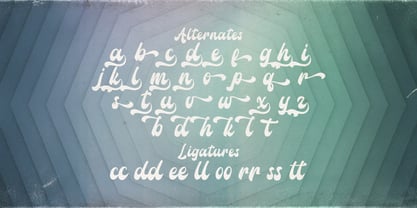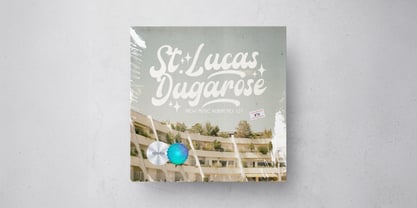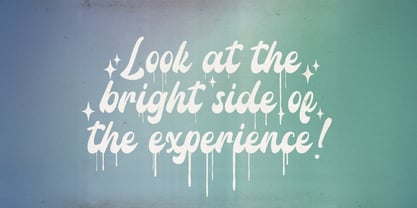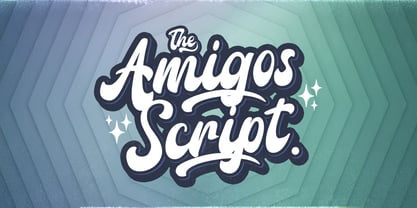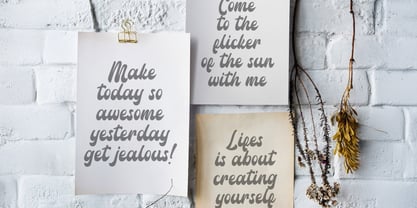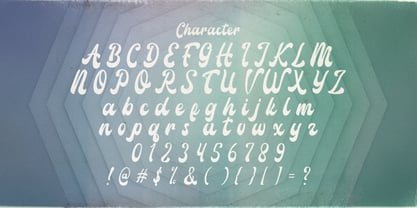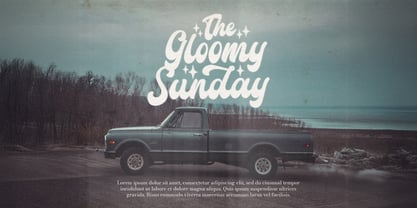
Amigos Script
by Stringlabs Creative Studio
The Amigos Script Font Family was designed by Virgiawan Listanto and published by Stringlabs Creative Studio. Amigos Script contains 1 styles.
Amigos Script is a retro bold script font bursting with vintage flair and playful personality. With its thick strokes, smooth curves, and nostalgic charm, Amigos Script brings that classic retro vibe to your modern designs. Perfect for logos, posters, packaging, and t-shirt designs, Amigos Script is made to stand out and spread good vibes wherever it goes.